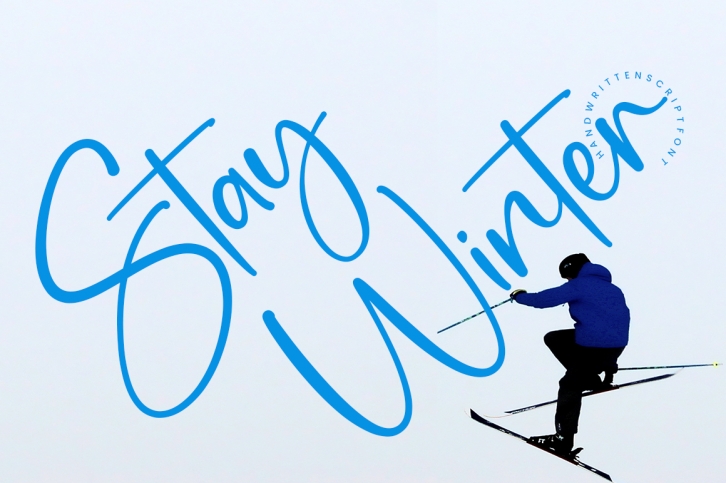
Stay Winter is a lovely script font featuring charming, playful characters that seem to dance along the baseline. Add this font to your most creative ideas, and notice how it makes them stand out!